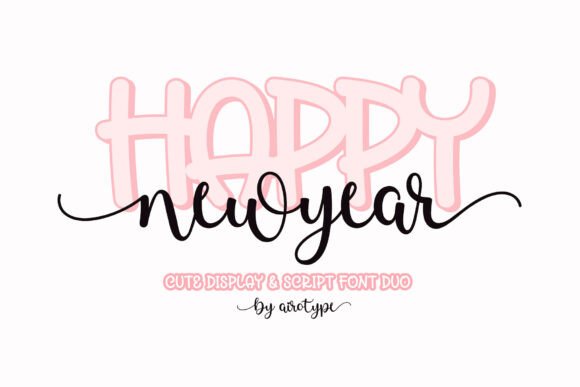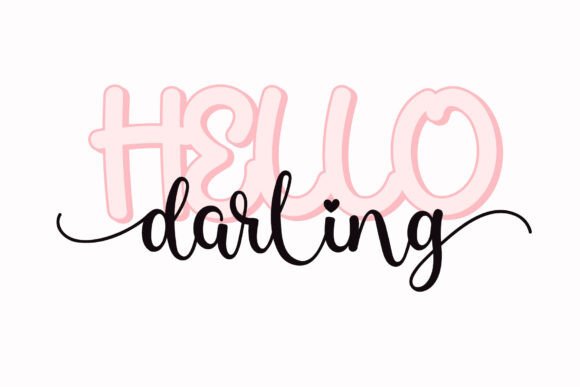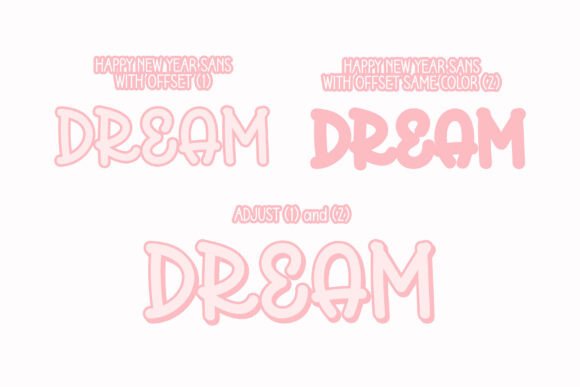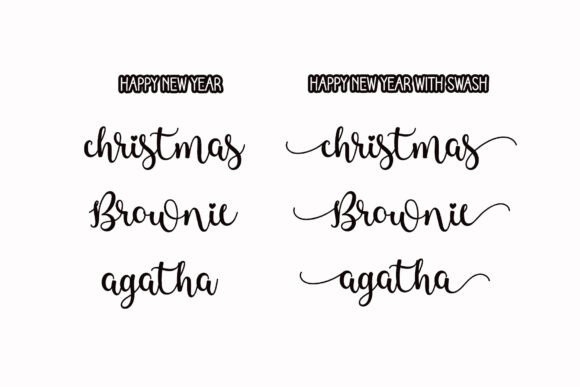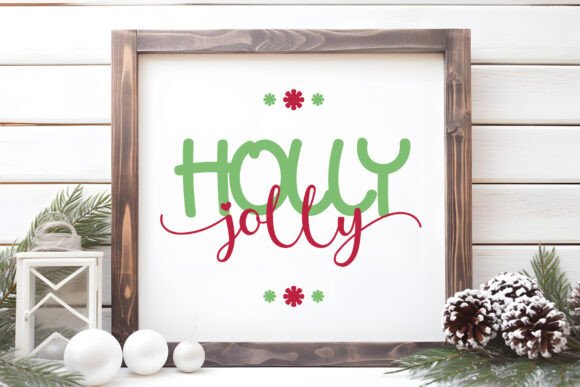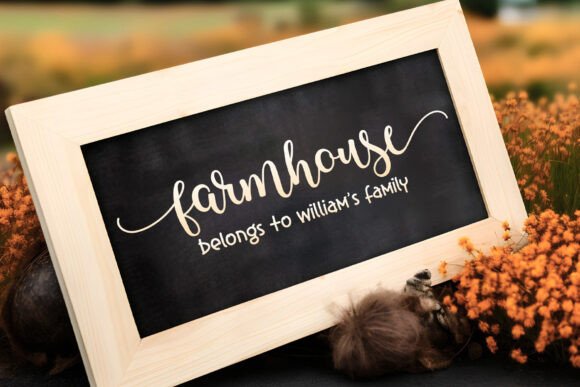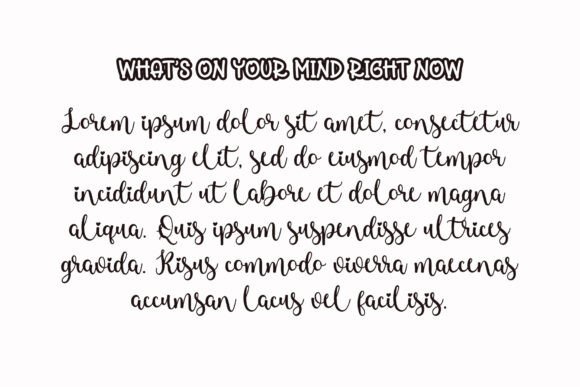
Happy New Year Font
Happy New Year is a handwritten font duo with cheerful and festive vibes. You can use the fonts together or separately for various designs.
The duo includes a playful calligraphy script with swashes and a cute display font. It’s perfect for fun, playful themes like kids’ projects, school designs, holiday or birthday invitations, summer, Christmas, New Year designs, t-shirts, crafting, stickers, sublimation, and much more.